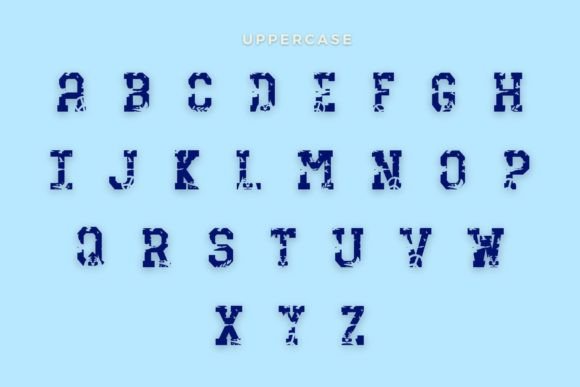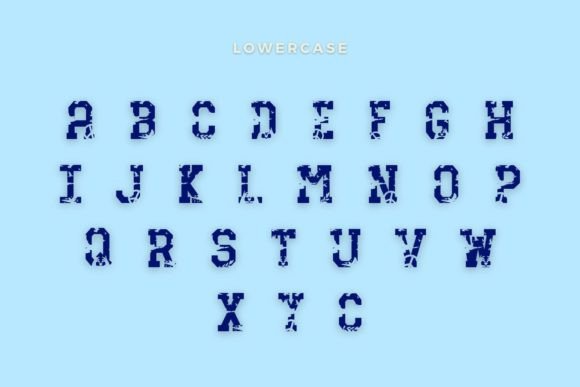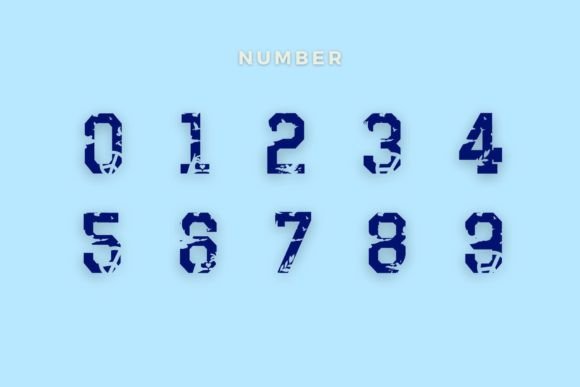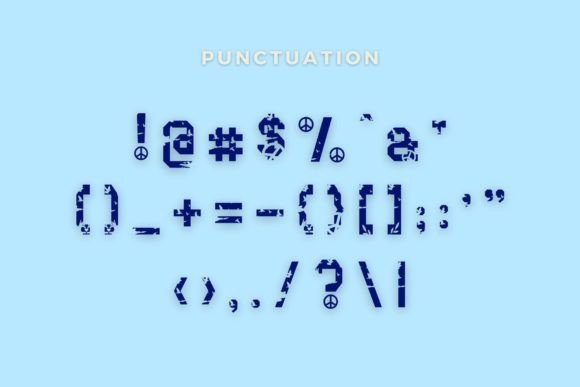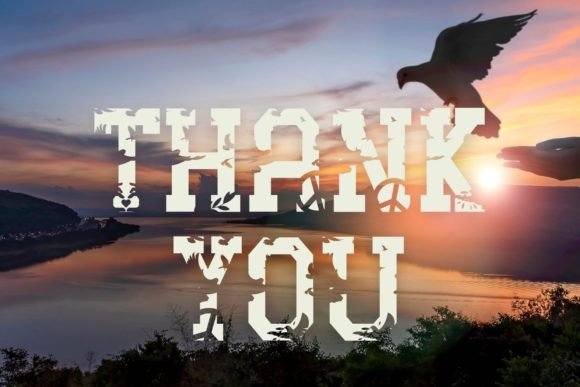
Introducing Happy Peace Day Font: The Perfect Addition to Your Design Arsenal
Are you a designer or crafter looking for a unique and eye-catching font to elevate your projects? Look no further than the Happy Peace Day Font! This fun and lovely decorative font is designed to add a touch of personality and whimsy to your designs, making them stand out from the competition with minimal effort.
What is Happy Peace Day Font?
Happy Peace Day Font is a carefully crafted typeface that exudes a sense of joy and playfulness. Its decorative style is perfect for a wide range of design projects, from greeting cards and invitations to social media graphics and product labels. With its unique and charming aesthetic, this font is sure to captivate your audience and leave a lasting impression.
Key Features of Happy Peace Day Font
- Unique and Decorative Style: Happy Peace Day Font boasts a distinctive and attractive design that will add a touch of personality to your projects.
- High-Quality Design: Happy Peace Day Font is meticulously crafted to ensure a high level of quality and consistency, making it perfect for professional designers and crafters.
- Versatility: This font can be used for a wide range of design projects, from digital graphics to print materials.
Benefits of Using Happy Peace Day Font
So, why choose Happy Peace Day Font for your design projects? Here are just a few benefits of using this amazing typeface:
- Stand Out from the Competition: With Happy Peace Day Font, you can create unique and eye-catching designs that will set you apart from others in your industry.
- Save Time and Effort: This font is easy to use and requires minimal effort to create stunning designs, saving you time and increasing productivity.
- Enhance Your Brand: Happy Peace Day Font can help you develop a consistent brand identity that reflects your personality and style.
- Endless Creative Possibilities: With this font, the creative possibilities are endless. Use it to create stunning designs for any project or occasion.
Tips and Tricks for Using Happy Peace Day Font
Here are a few tips and tricks to help you get the most out of Happy Peace Day Font:
- Experiment with Different Sizes and Colors: Try out different sizes and colors to add depth and visual interest to your designs.
- Combine with Other Fonts: Pair Happy Peace Day Font with other fonts to create a unique and eye-catching combination.
- Use for Headings and Titles: This font is perfect for headings and titles, adding a touch of personality and whimsy to your designs.